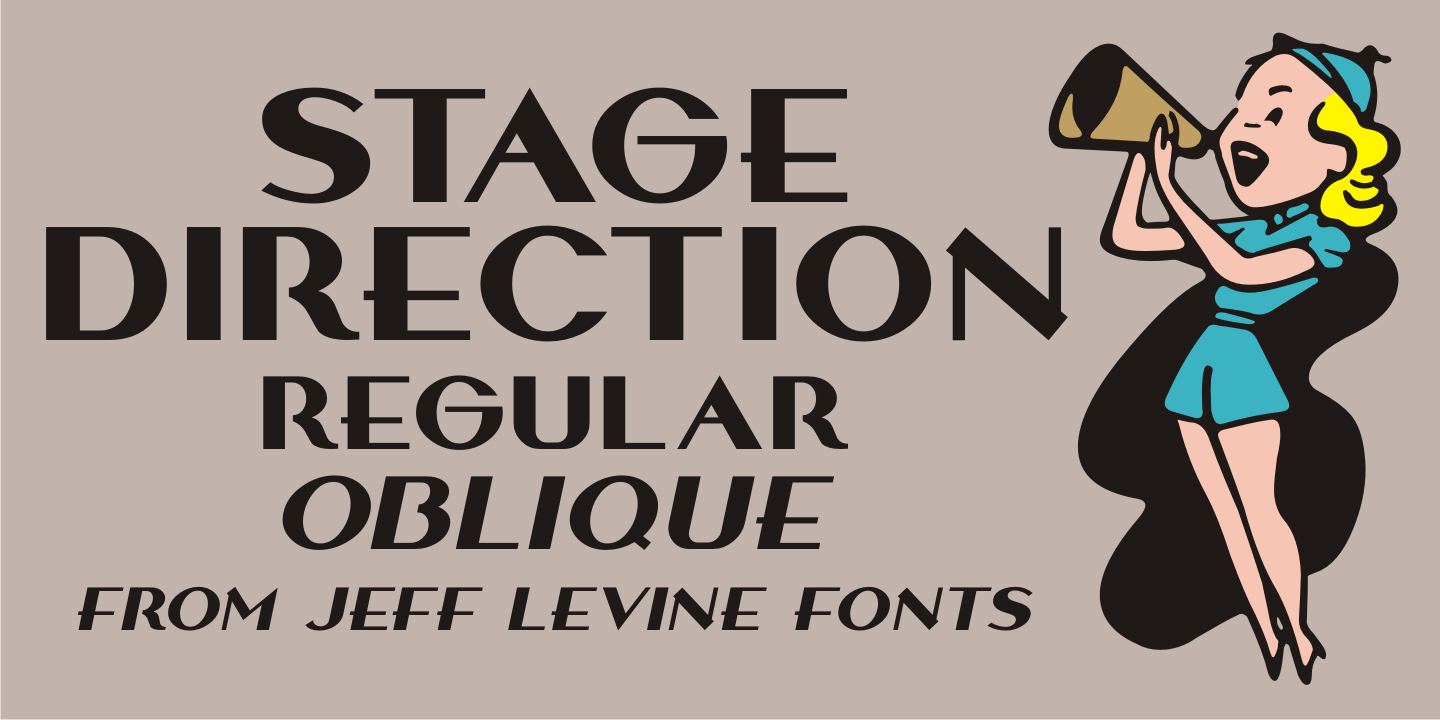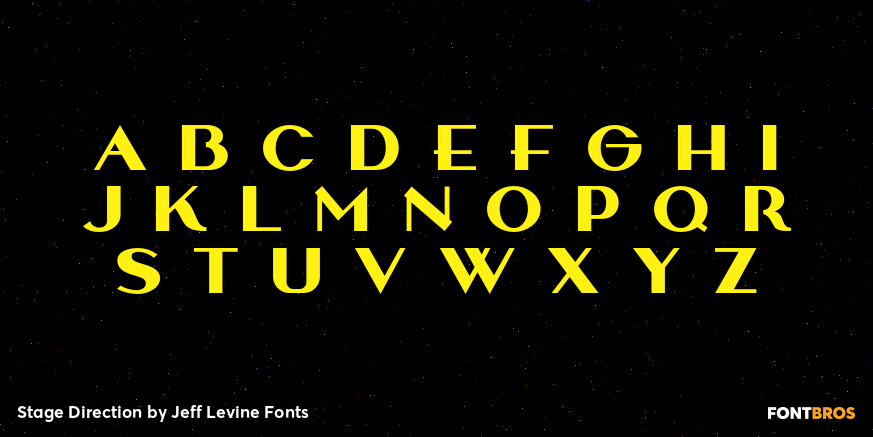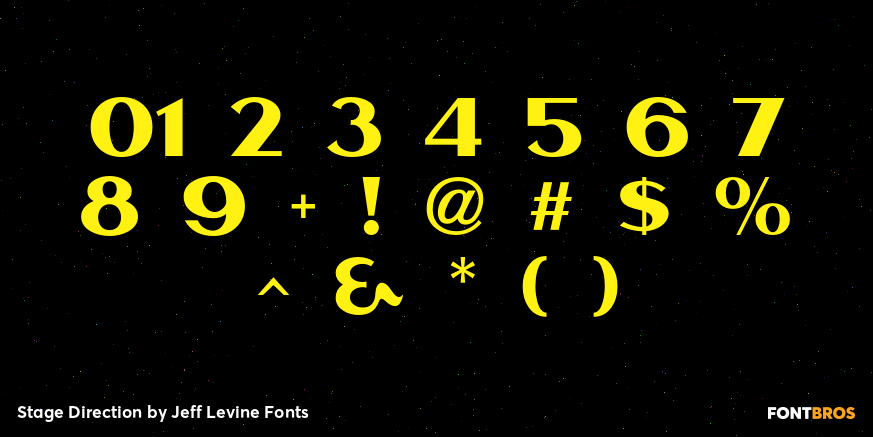
Stage Direction
On the cover of the 1932 sheet music for "Without Your Love", the credits for the stage play "The Dubarry" are listed under the name of the star and the play's title.
These hand lettered credits served as the work model for Stage Direction JNL, which is available in both regular and oblique versions.